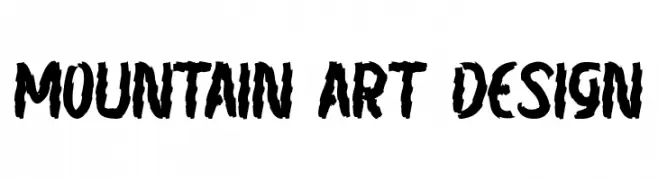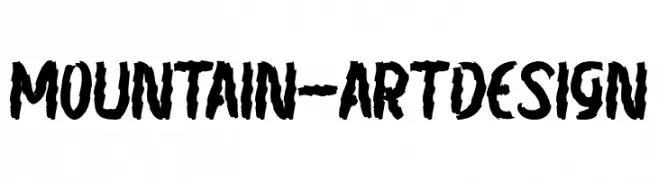
• Fh_Hyperbole-Light
A playful, casual handwritten font with thin, slightly uneven strokes.
• Fh_Hyperbole-LightItalic
A light, italic font with a fluid and dynamic style.
• Fh_Hyperbole-LightItalic
A light, handwritten italic font with a modern and elegant style.
• Fh_Ink
A bold, distressed font with a textured, ink-like appearance.
• Fh_Lentil
A modern, geometric font with medium contrast and a sleek appearance.
• Fh_Lentil
• Fh_Letter
A whimsical, hand-drawn font with playful swirls and curls.
• Fh_Nicole
A playful, casual handwritten font with uneven strokes and an organic flow.
• Fh_Obscene
A grungy, distressed font with splattered ink effects and dynamic strokes.
• Fh_Perception
A modern, geometric font with clean lines and rounded edges.
• Fh_Reverse
A geometric, futuristic font with angular, interconnected lines.
• Fh_Scribble
A playful, hand-drawn font with a doodle-like, textured style.
• Fh_Script
A playful handwritten font with dynamic strokes and a casual style.
• Fh_Sneaky
A playful, handwritten font with smooth curves and a friendly appearance.
• Fh_Space
A clean, modern sans-serif font with geometric structure and consistent stroke width.
• Fh_Ugly
A playful, hand-drawn font with a double-line outline and quirky style.
• Fiber Regular
A bold, geometric font with a three-dimensional shadow effect.
• Fichas St
A decorative font with bold, outlined letters encased in textured square frames.
• Fictive Kinship Regular
A bold, three-dimensional font with dotted inner detailing and strong shadow effects.
• Fifteen Stories
• Figurativative